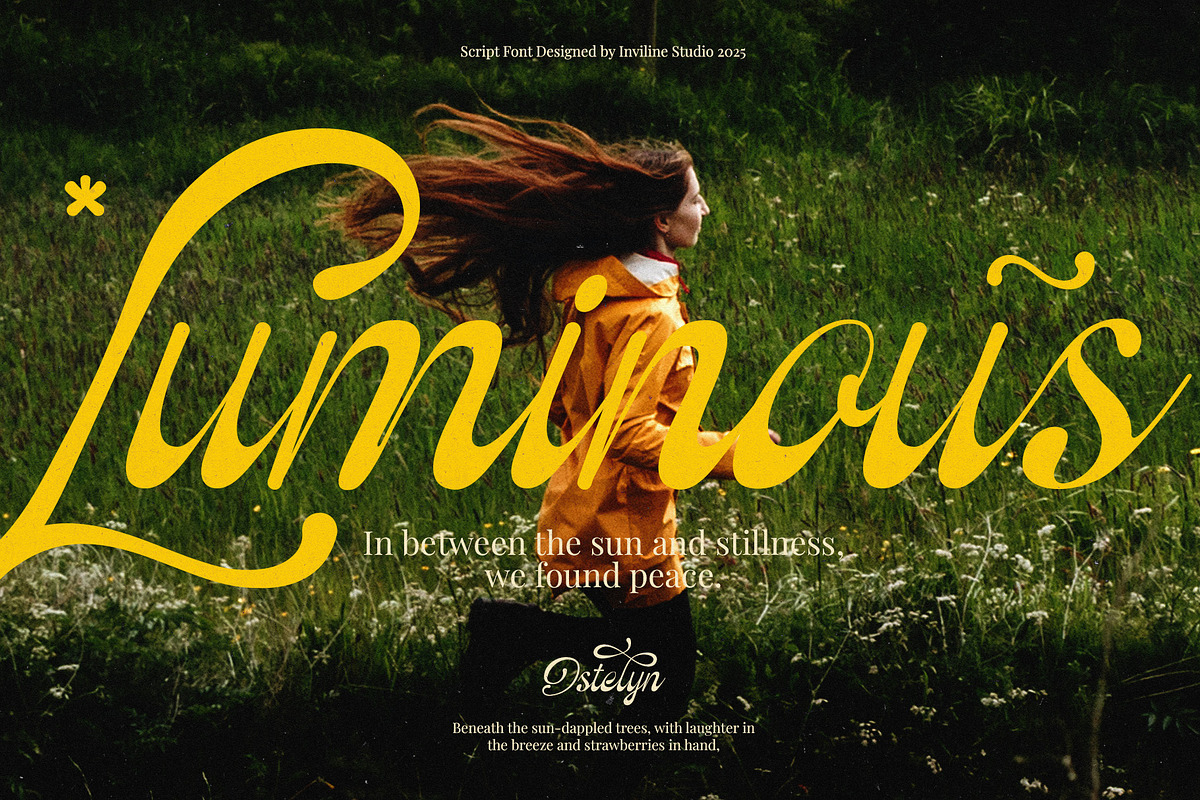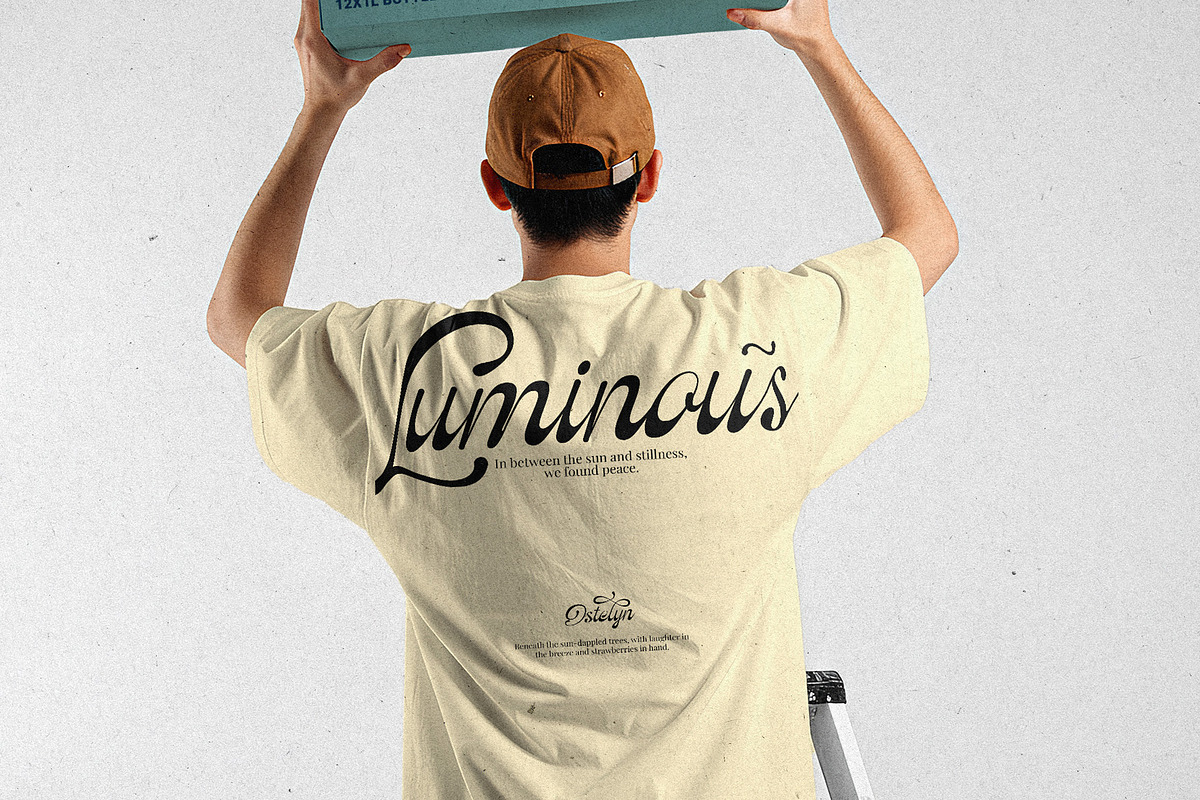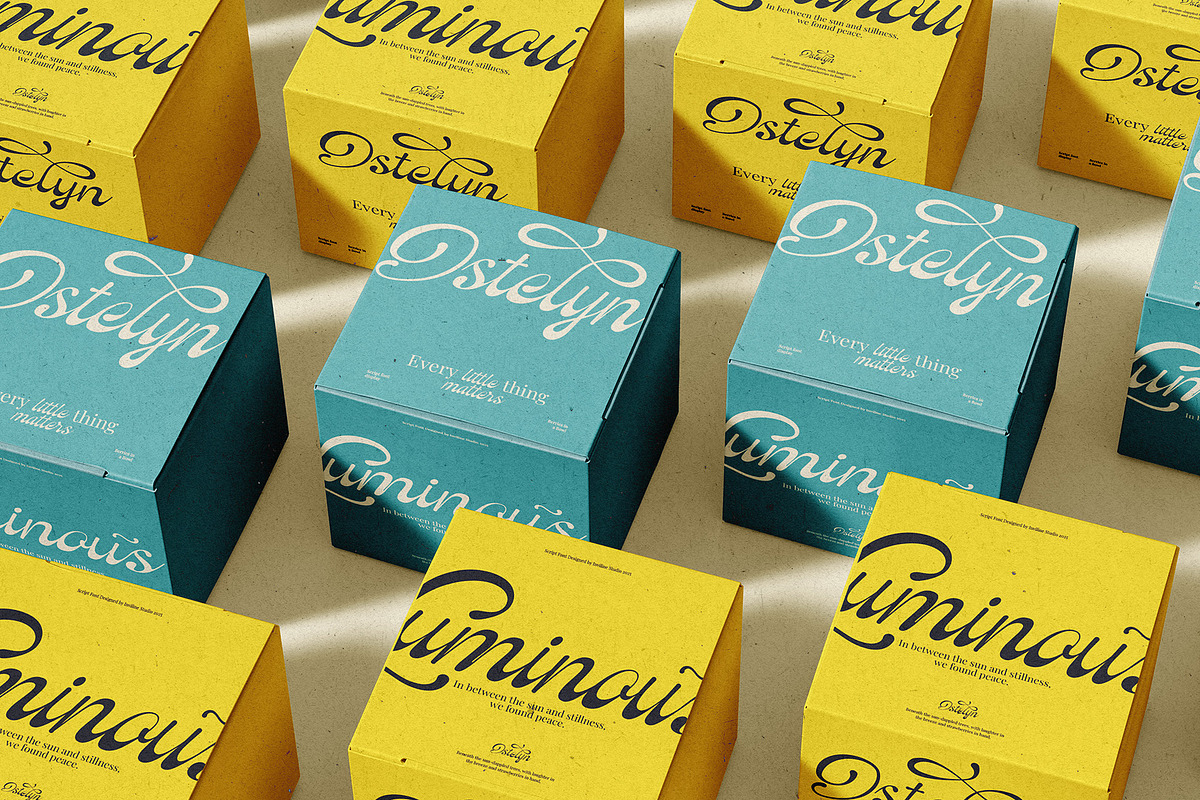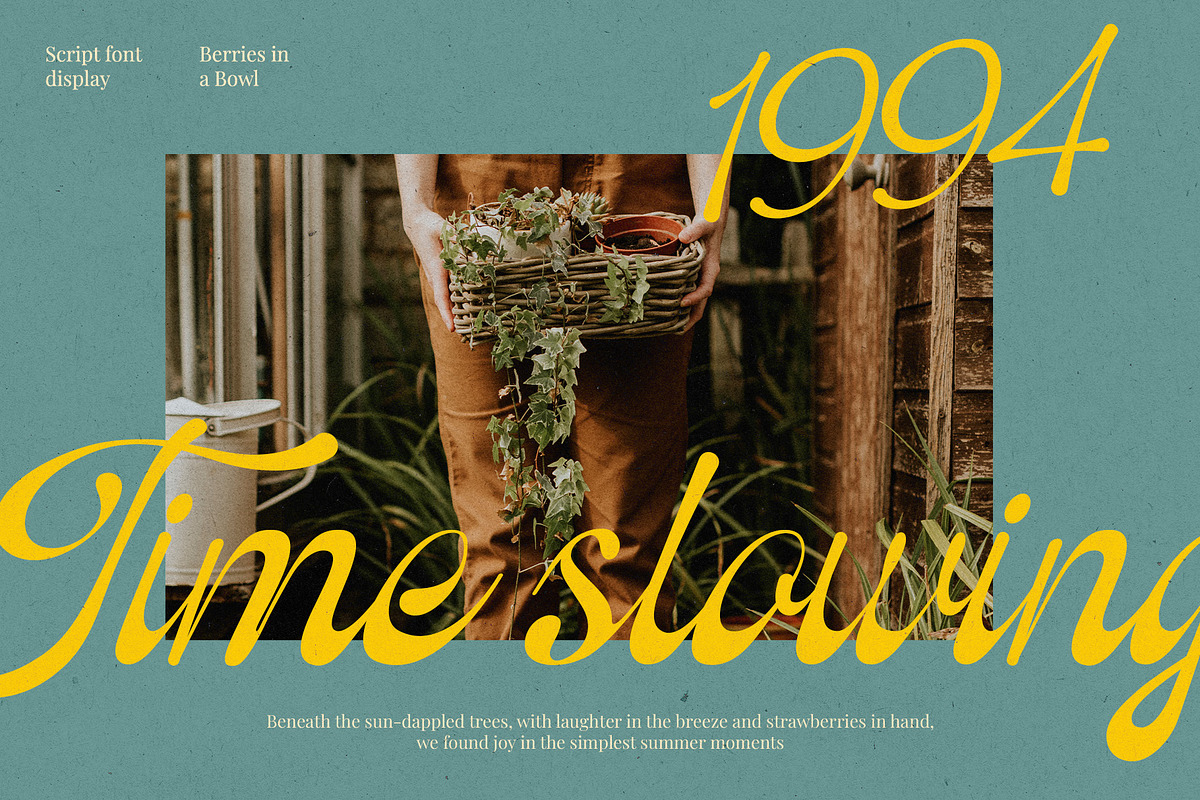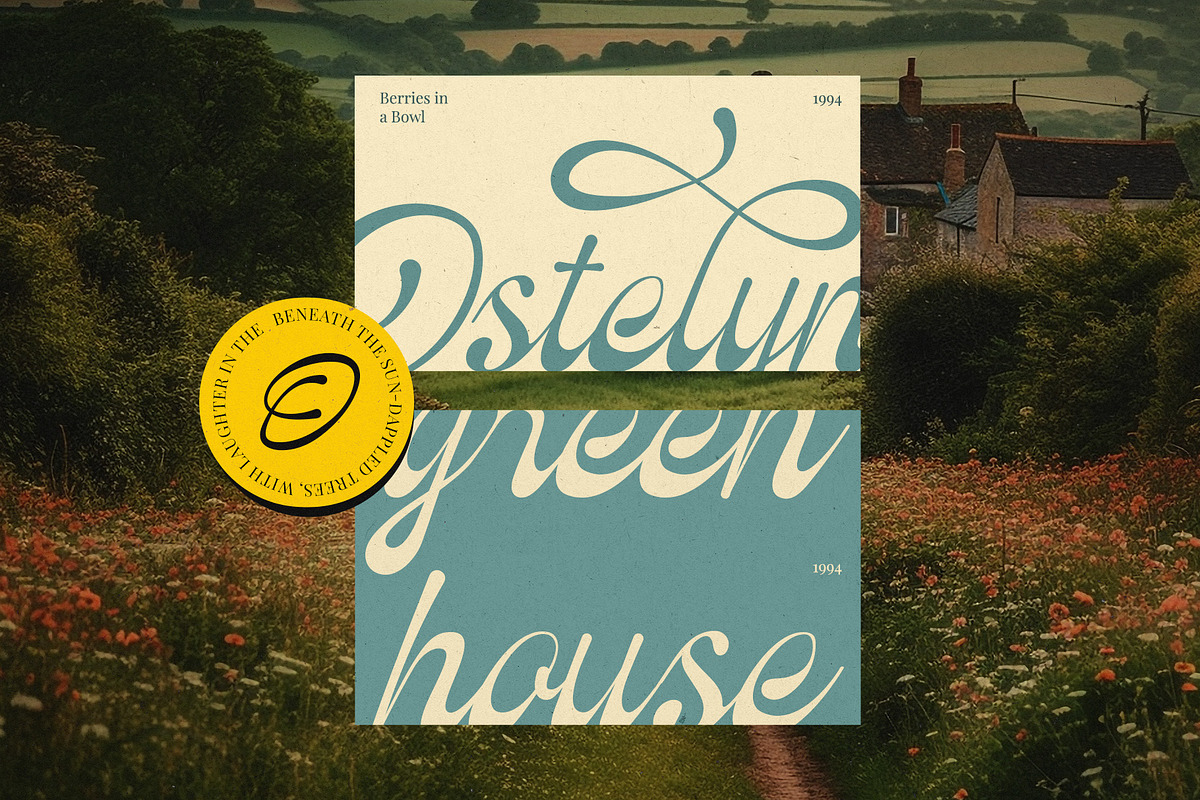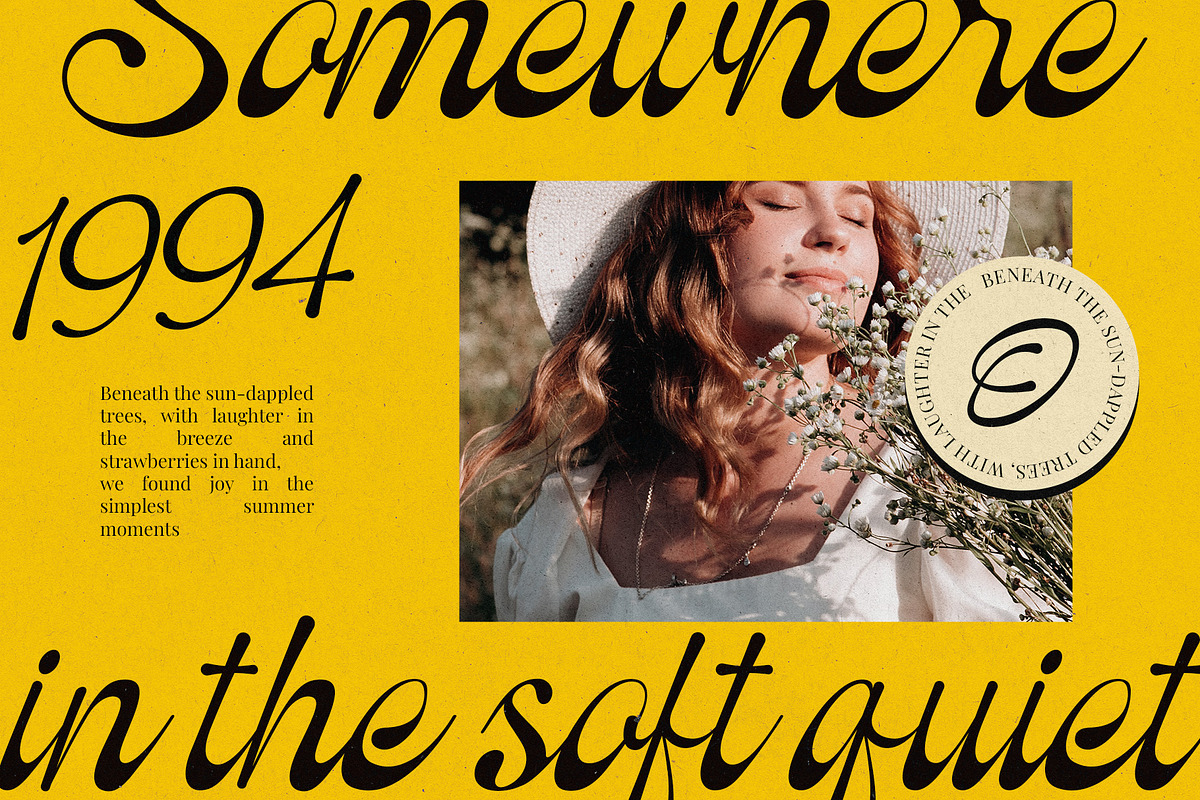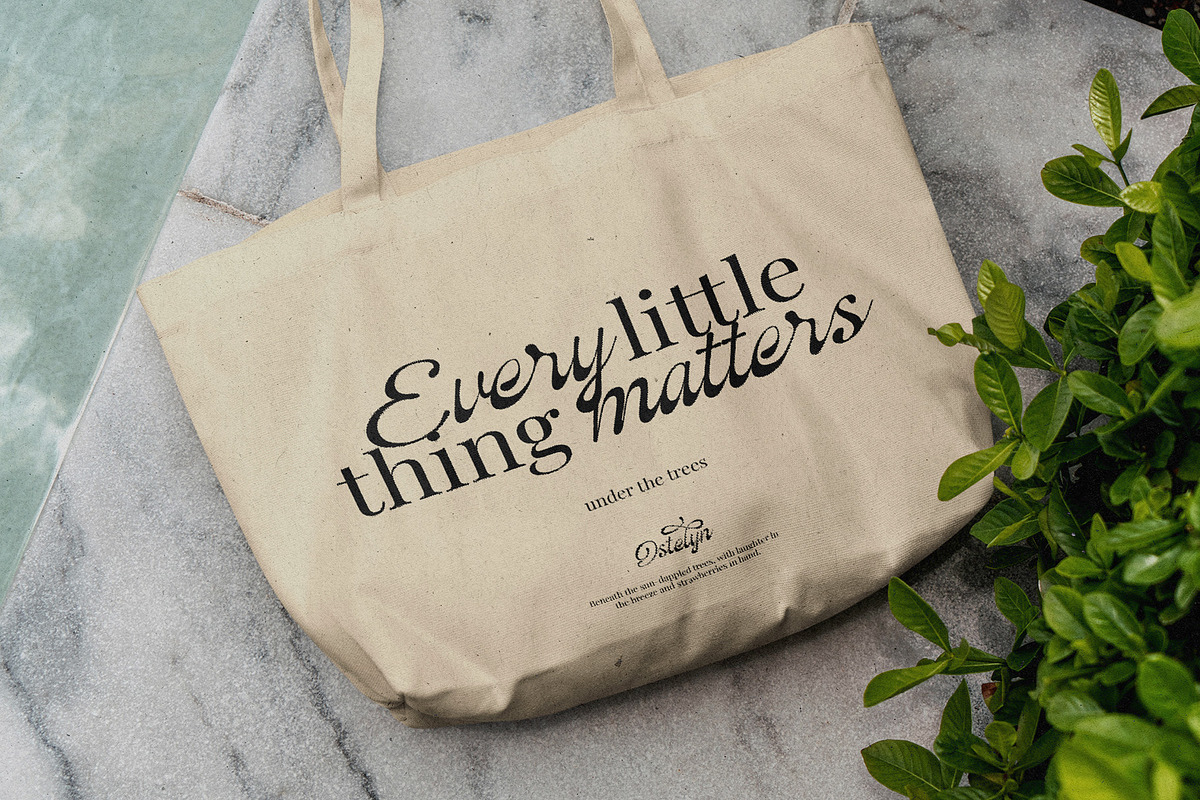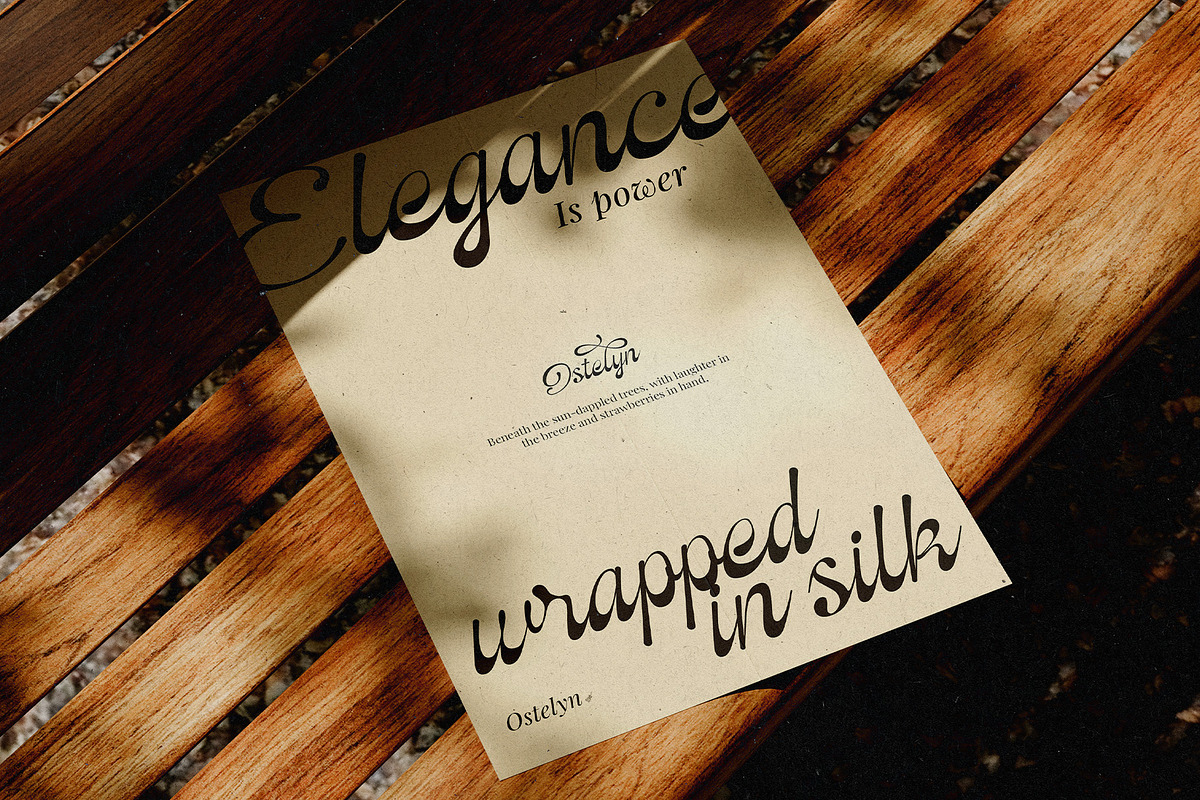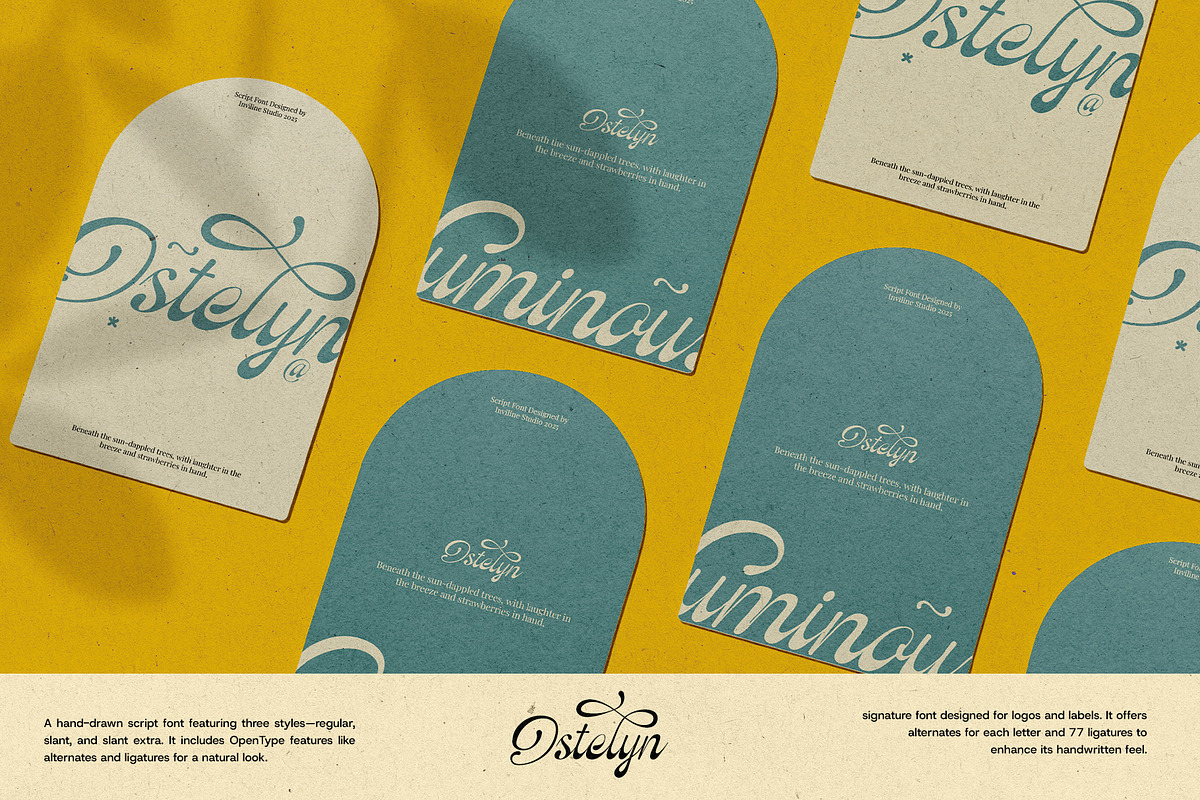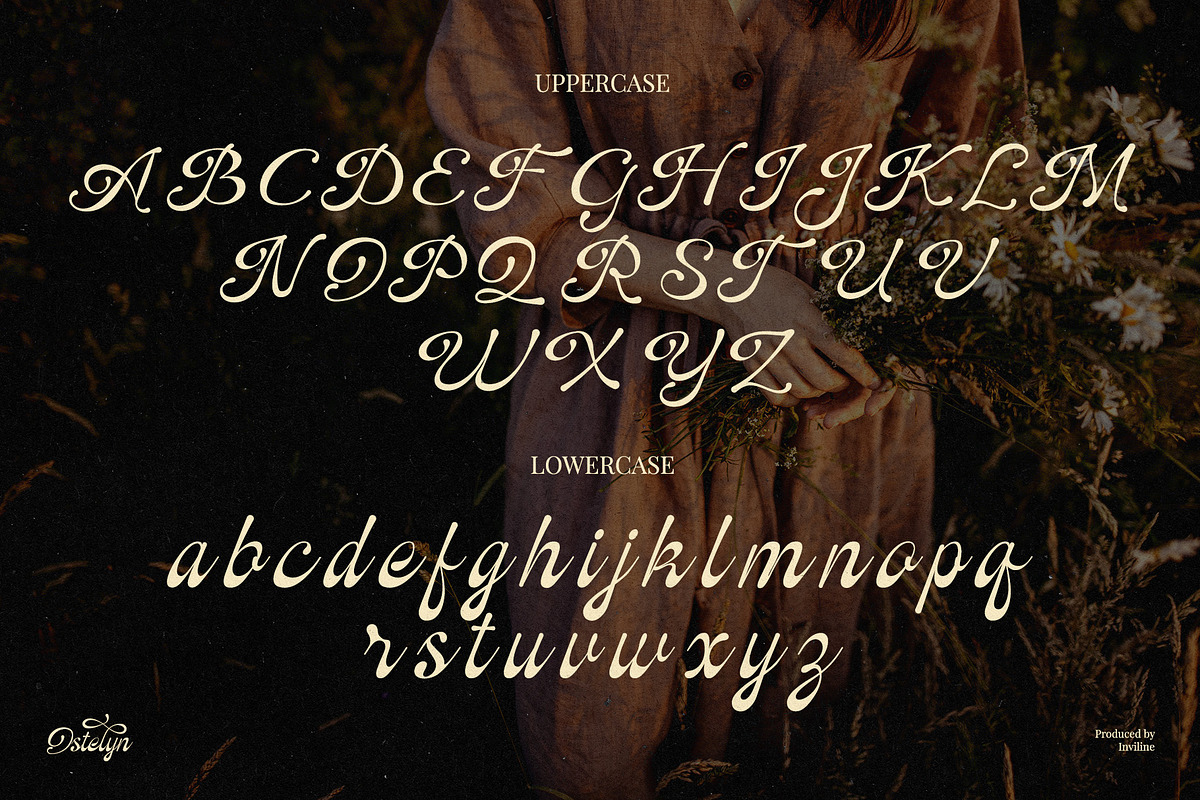
Ostelyn – Elegant Script Font
Ostelyn is a refined script font designed for those who appreciate elegance and sophistication. With its smooth curves and delicate style, it adds a graceful, personal touch to high-end branding, invitations, and modern editorial designs.
- Elegant, flowing cursive with smooth transitions
- Includes alternate characters and ligatures for customization
- Designed for upscale branding and luxury projects
- High readability while maintaining an elegant script style
- Multilingual support with extended characters
Recommended Uses:
- Wedding invitations and event stationery
- Elegant branding and luxury product packaging
- Fashion editorials and lifestyle magazines
- Personalized gift products like stationery and mugs
- Social media designs for high-end brands
- Business cards and logos with a classy touch
- Features: Alternates, ligatures, multilingual characters